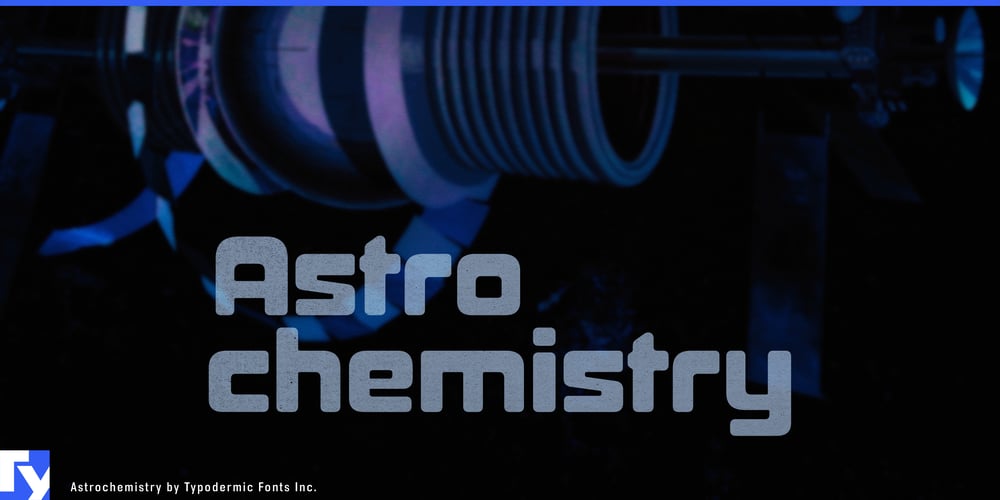
Astrochemistry
Astrochemistry font
Astrochemistry Font Family was designed by Ray Larabie and published by Typodermic. Astrochemistry contains 1 styles and family package options. Launch your designs into orbit with Astrochemistry, a typeface that defies gravity and ignites imagination. This hefty, square-jawed marvel transforms mundane messages into celestial declarations.Astrochemistry’s bold, angular forms create headlines that command attention, pairing seamlessly with sans-serif body text to establish a clear visual hierarchy. From corporate reports to edgy album covers, this versatile font adapts while maintaining its unmistakable presence.Astrochemistry speaks fluently across a vast array of Latin-based languages. Your message will resonate clearly from Norway to Argentina, ensuring your brand achieves escape velocity from the mundane.In the high-stakes arena of brand communication, Astrochemistry is your secret weapon. It doesn’t just grab attention; it holds it in a tractor beam of typographic excellence. With this font, you’re not just making a statement—you’re initiating first contact with the future of design.Ready to explore new frontiers of visual communication? Let Astrochemistry be your launchpad to the stars. The cosmos of creativity awaits.